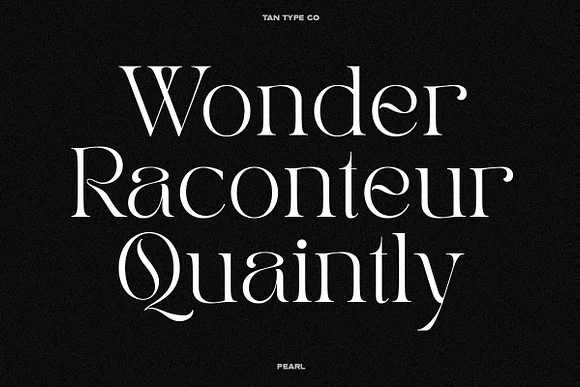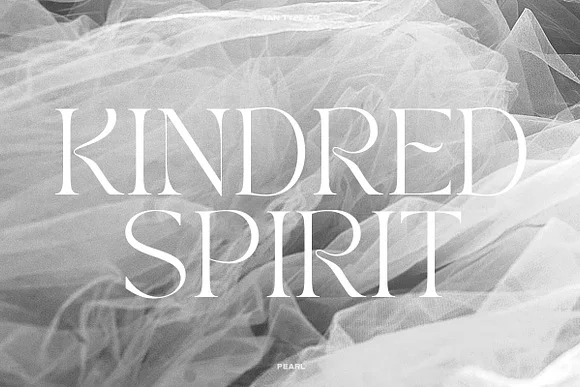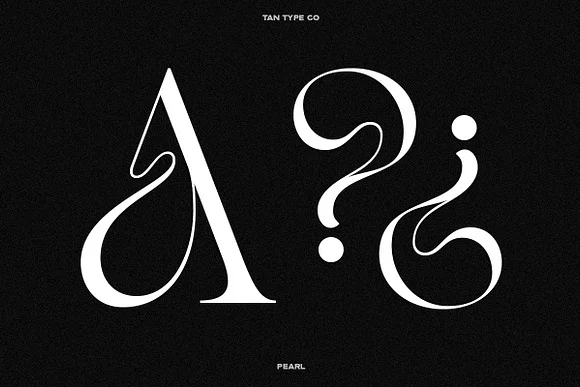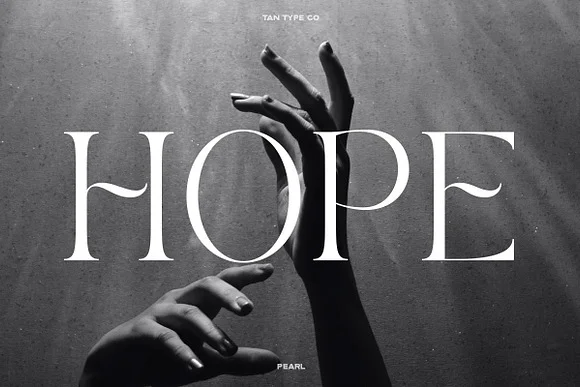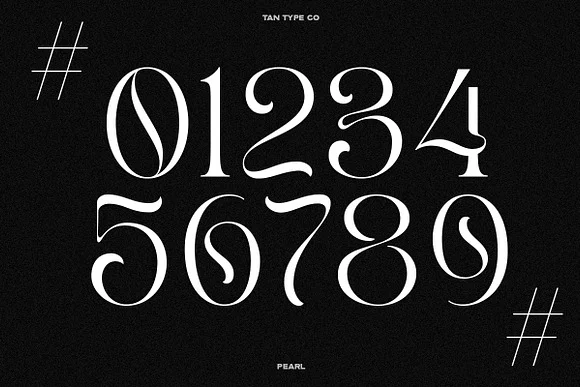
TAN - PEARL Font
The TAN - PEARL is a versatile typeface crafted for designers who demand both versatility and character. Whether you are working on a personal project or a high-profile commercial brief, this font delivers exceptional legibility across all sizes.
This TAN - PEARL is an excellent choice for social media graphics, event materials, advertising campaigns, web design, editorial layouts. Its carefully considered design makes it equally effective for print and digital media, ensuring your message lands with impact regardless of the medium.
What distinguishes TAN - PEARL is its outstanding visual balance and proportion. The typeface was developed with the modern designer in mind, balancing aesthetic appeal with functional performance across a wide range of creative applications including logo design, packaging design, branding projects.
The TAN - PEARL family ships with thin through black weights with multiple stylistic alternates, giving you full control over typographic hierarchy. Every weight has been individually optimised to maintain consistent stroke contrast and spatial harmony throughout the entire family.
Graphic designers and brand strategists consistently choose TAN - PEARL when projects demand authentic typographic character and reliable performance. The font's distinctive design language immediately elevates brand communications and creative compositions, making it a valuable addition to any professional typeface library.
Technical precision is at the heart of TAN - PEARL . The letterforms have been drawn with meticulous attention to curve quality, optical sizing, and inter-character spacing, resulting in typography that reads effortlessly at display sizes and remains crisp in body copy applications.